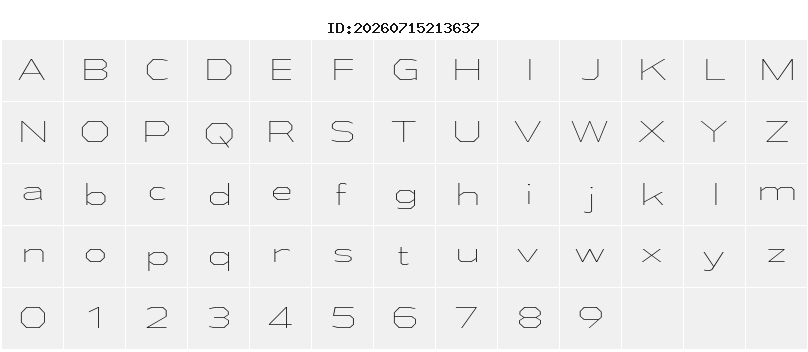
Athabasca Ex El Preview
• Font Name: Athabasca Ex El
• Designer: Ray Larabie
• Manufacturer: Ray Larabie
About Athabasca Ex El.ttf
Athabasca Ex El.ttf is a modern, elegant sans-serif font designed for ultimate readability and visual harmony. Perfect for branding, headlines, web design, and print materials.